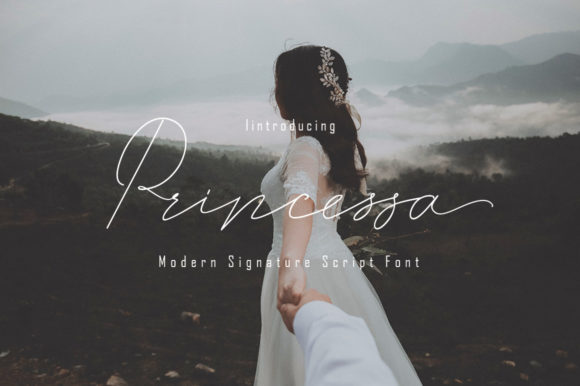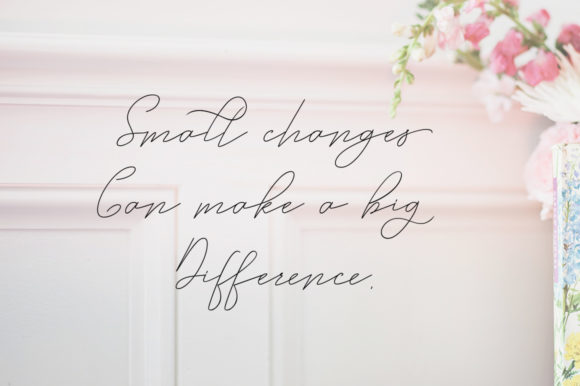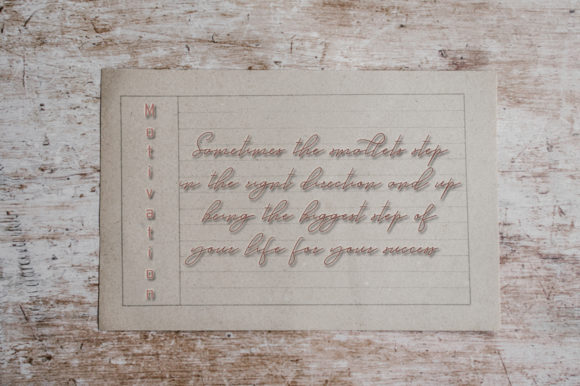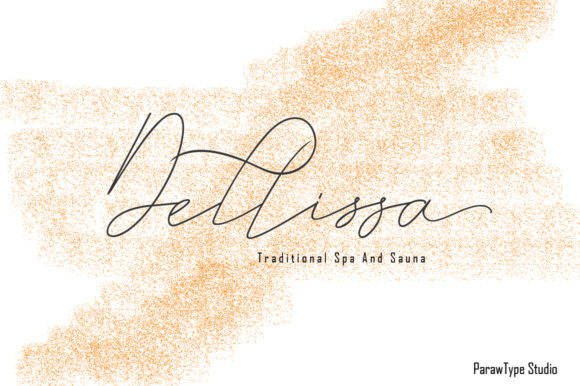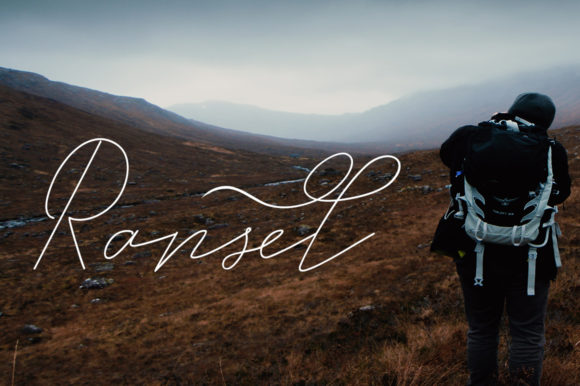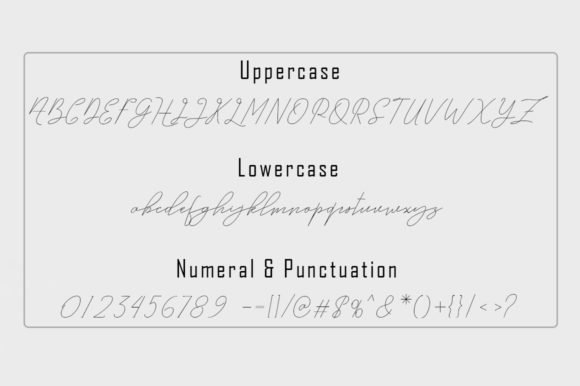
HomeScript FontsPrincessa Font Script Fonts Princessa Font FacebookXPinterestWhatsApp Princessa Font Poster 2 Princessa Font Poster 3 Princessa Font Poster 4 Princessa Font Poster 5 Princessa Font Poster 6 About Princessa Font Princessa is a lovely handwritten script font with romantic charm. Fall in love with its delicate appearance! DOWNLOAD ON CREATIVE FABRICAThis font is sold and delivered by Creative Fabrica. Font Canyon may earn a commission if you buy through this link. People also explored Ribbons Font Amstrong Raspberry Font JuanMikes Font Hands Up Font Lillian Script Font Voulentire Font Be at Peace Font Kupu Kupu Font 332 0 TagsPrincessa Font Previous articleGanbatta FontNext articleAmpersand | 48 Different Styles Font LEAVE A REPLY Cancel reply Comment: Please enter your comment! Name:* Please enter your name here Email:* You have entered an incorrect email address! Please enter your email address here Website: Save my name, email, and website in this browser for the next time I comment. Personal Use Free Mail Ray Stuff Personal Use Free Read more about this font Evensong Hollow Personal Use Free Read more about this font Good Timing – Bold Personal Use Free Read more about this font Artisan Signature Personal Use Free Read more about this font BLOG Fonts That Capture the Spirit of New York City New York City is more than just a place—it’s an experience, a rhythm, a visual language... Exploring Font Trends Free Fonts Risk: Why Free Fonts Can Be Dangerous for Designers Elegant Wedding Invitation Fonts – Handwritten & Script Fonts